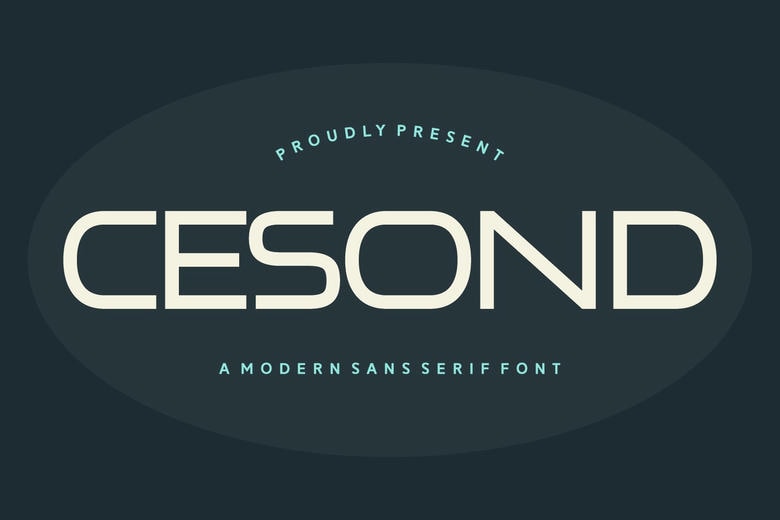
Cesond Font
Cesond is decorated with clean lines and perfect proportions of the sans-serif font of the progressive design. It is smooth, simple yet professional which makes it ideal for branding, web and editorial industry. Cesond promotes professionalism and flexibility to accommodate text readability in print and Web context.
Cesond Sans Serif Font